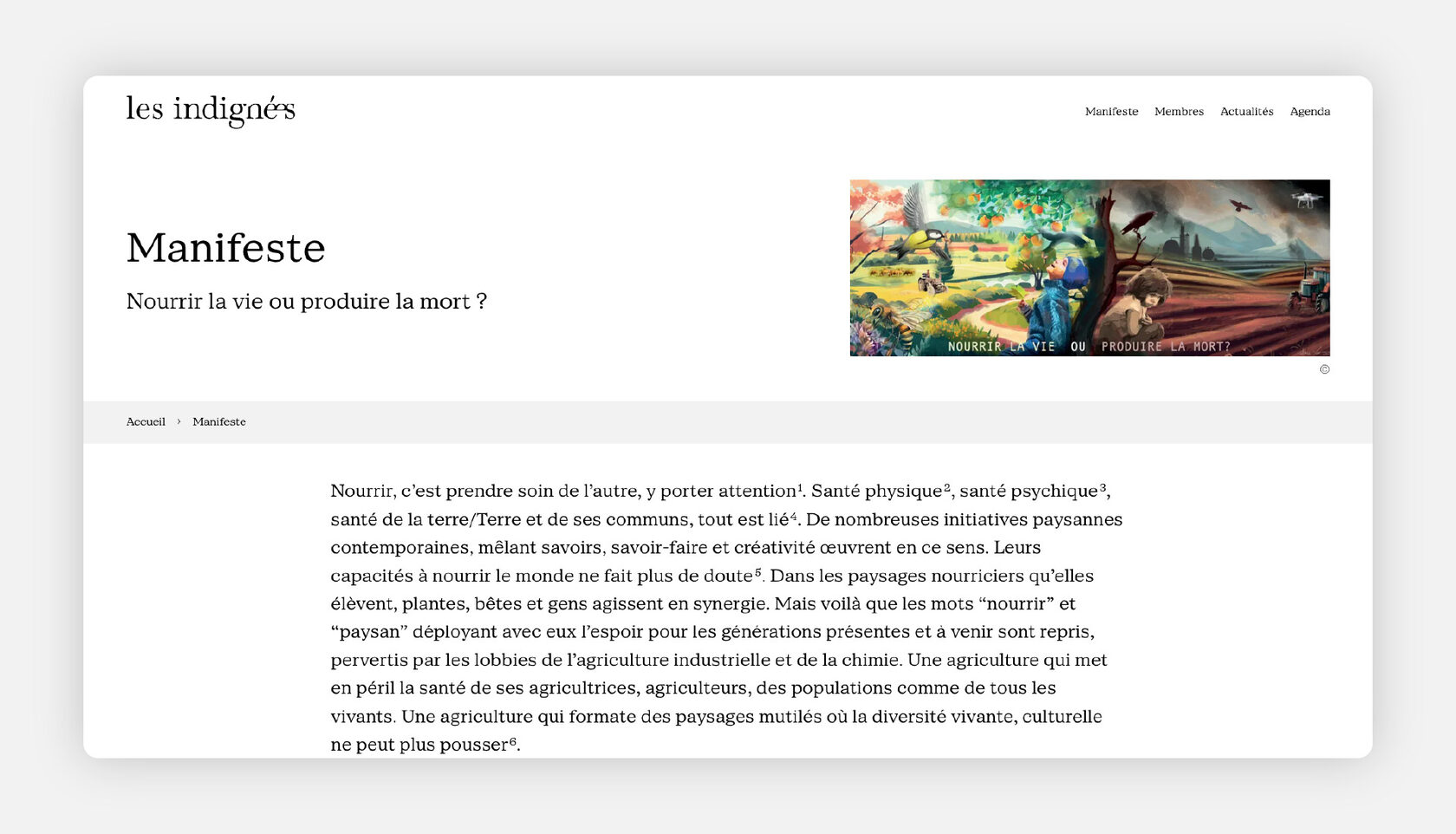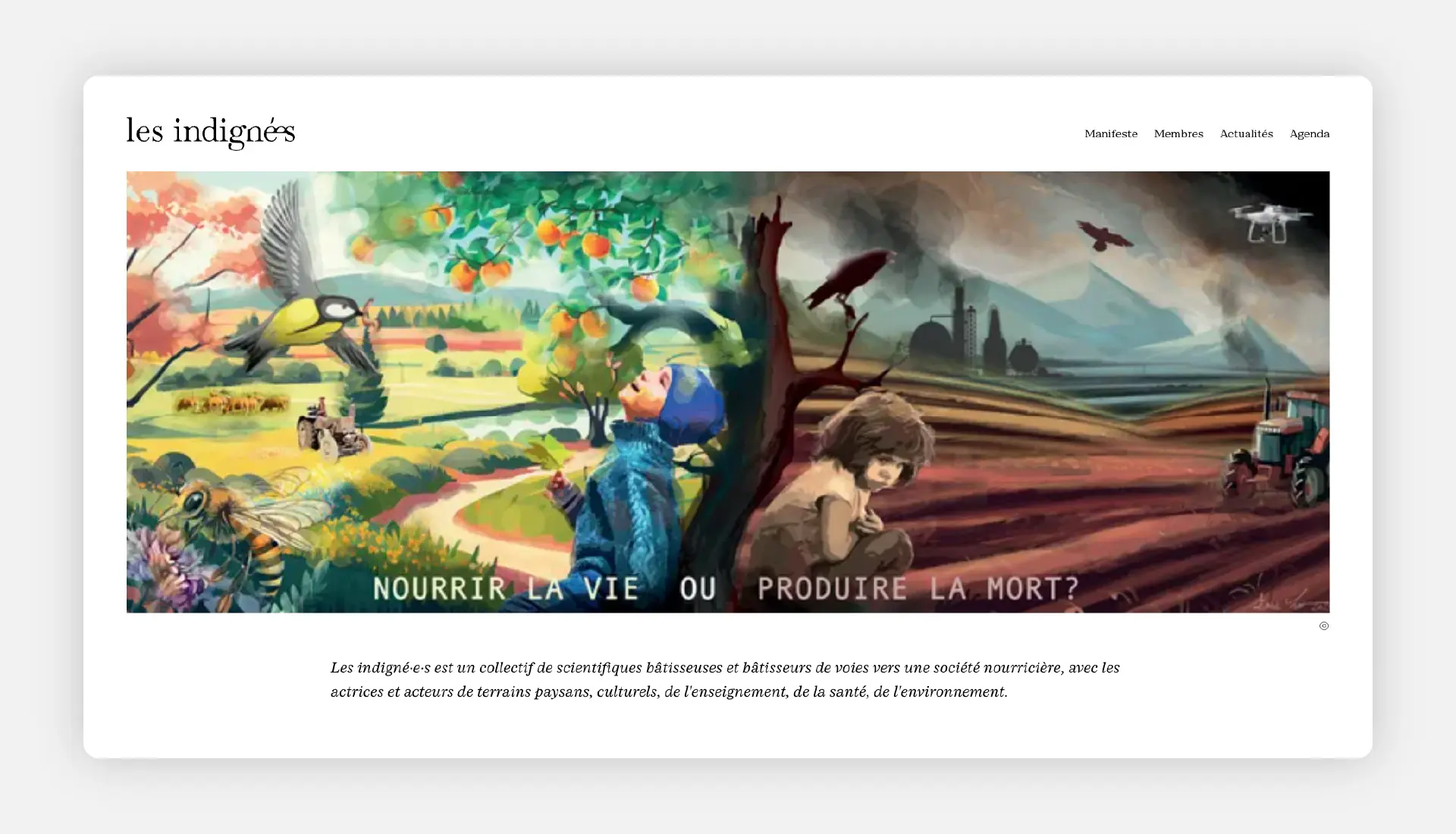
Les Indigné·e·s — Collective for a Nurturing Society
Font: SFT Schrifted Serif (Text Regular, Text Italic).
Use case: Website typography.
About the Project:
Les Indigné·e·s is a collective of scientists and practitioners dedicated to building pathways toward a nurturing society, collaborating with individuals from agriculture, education, health, and environmental sectors. Their website serves as a platform for manifestos, member information, news, and event agendas, all presented with a focus on clarity and engagement. The use of SFT Schrifted Serif throughout the site provides a modern yet authoritative aesthetic, enhancing readability while conveying the collective’s commitment to thoughtful discourse and societal transformation. Italics are used for emphasis in key statements and quotes, reinforcing the reflective and nuanced nature of their message.
Why SFT Schrifted Serif?
For a platform addressing complex societal issues, typography must be accessible yet impactful. SFT Schrifted Serif balances elegance and readability, with structured forms enhancing credibility. The use of italics adds a nuanced, expressive layer, highlighting critical ideas and fostering engagement with the content.